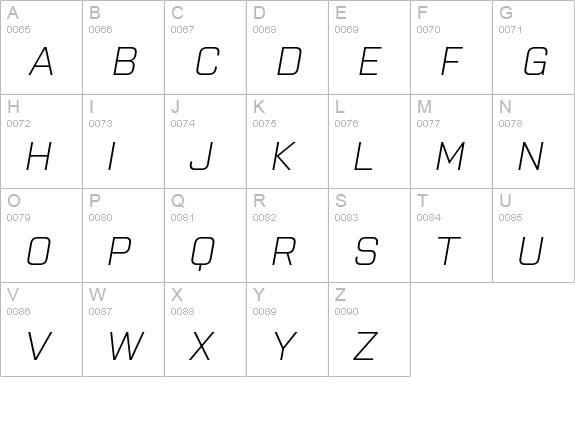
Purista Light Italic Font Details
Purista Light Italic is a refined, elegant, italic variant in the Purista typeface family \xE2\x80\x94 well suited to elegant body text, refined sub-headings, and luxury branding.
Purista Light Italic font is a modern, elegant typeface that exudes sophistication and style. Its sleek and slender design makes it perfect for adding a touch of elegance to any project. The italicized version of Purista Light adds a dynamic and graceful flair to your text, making it ideal for conveying a sense of refinement and sophistication. This font is perfect for use in branding, editorial design, and any project where a touch of sophistication is desired. Whether you are designing a sleek logo, creating a stylish magazine layout, or crafting an elegant wedding invitation, Purista Light Italic font is sure to elevate your design to the next level. Best of all, Purista Light Italic font is available for free download at FontsMarket.com. Simply visit the website to access this stunning typeface and enhance your design projects with its beautiful and versatile style. Don't miss out on the opportunity to add this elegant font to your collection and bring a touch of sophistication to your designs.